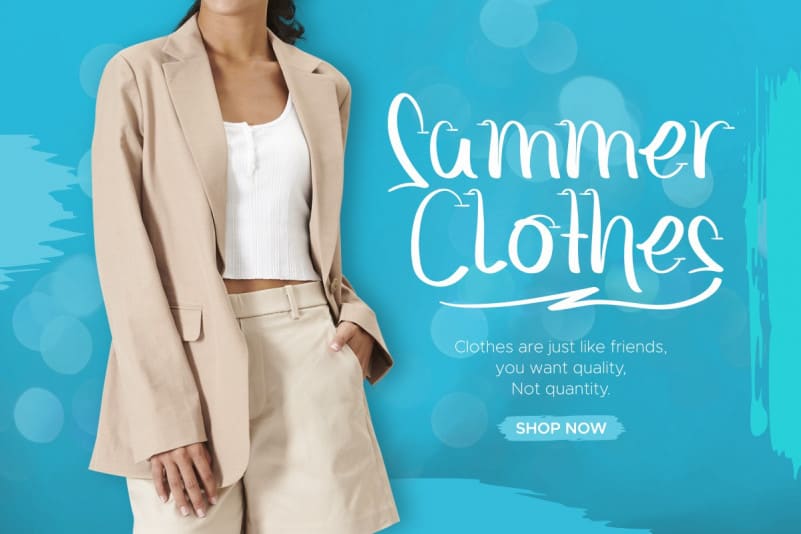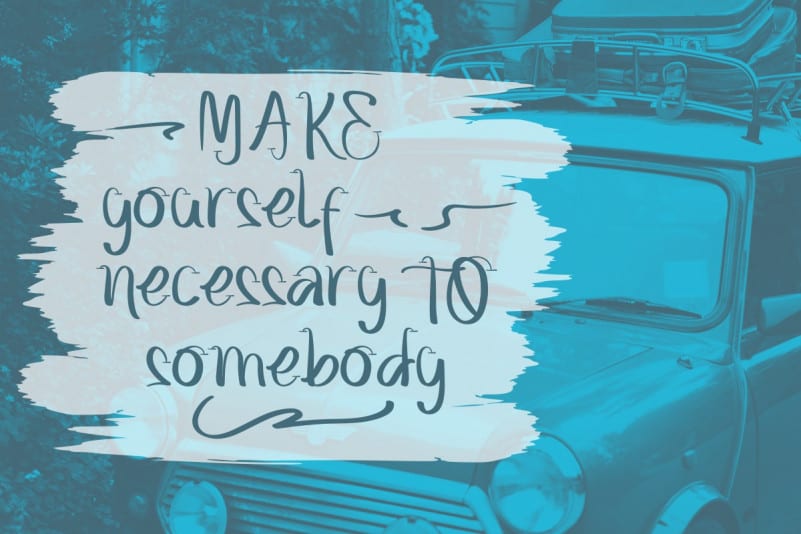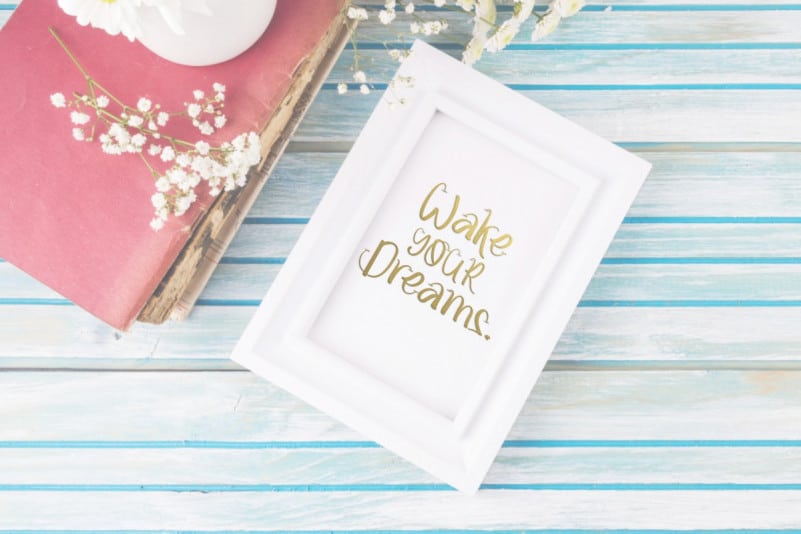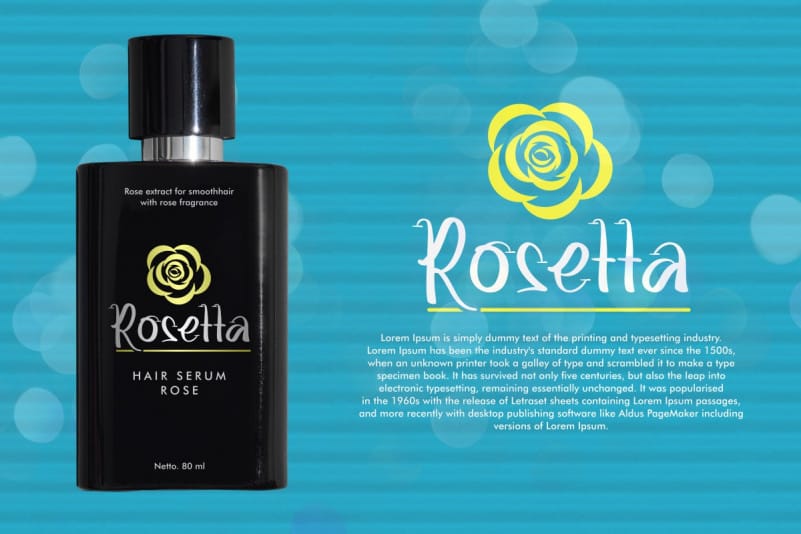
Street Letters Script Font
Street Letters Script Font is a unique handwriting display font inspired by graffiti art from the street. This font is crafted carefully in every its single letter so we can make sure it has special looking, exclusive and This one should make your designs instantly standout and jaw-dropping!